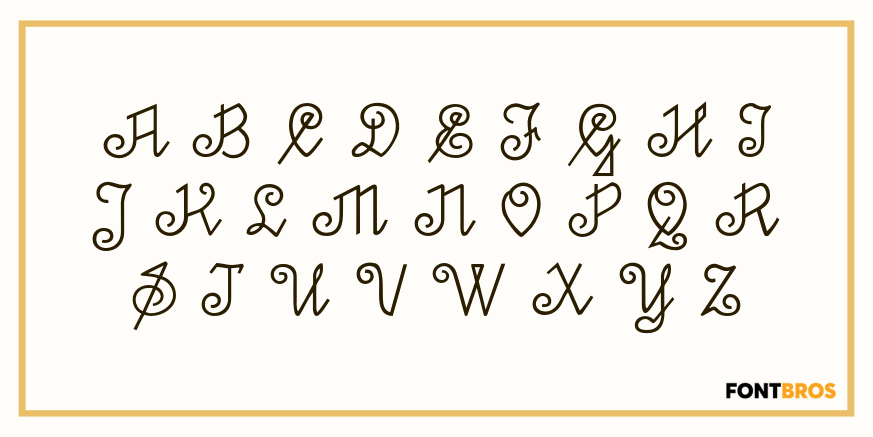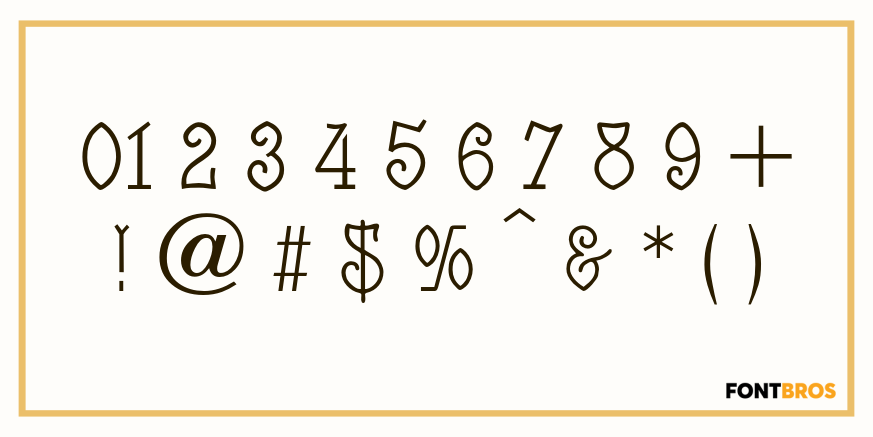
Master Script
An unusual angular vertical script. In late Victorian times it was seen mostly in advertising work, seldom in social stationery and announcements.